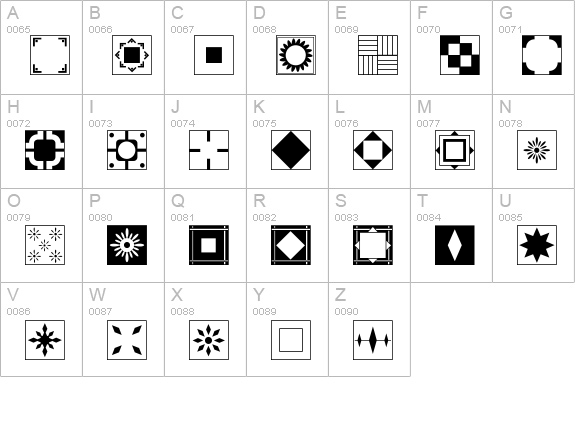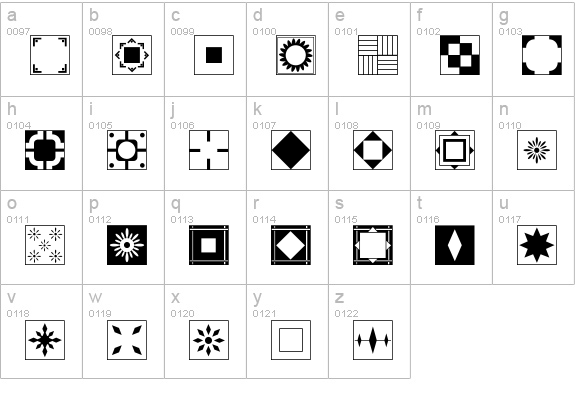
Floor Tile Patterns, Pt. 2 JL Font Details
Floor Tile Patterns, Pt. 2 JL font is a stunning and versatile typeface that adds a touch of elegance to any design project. This font features intricate tile-inspired patterns that create a unique and eye-catching aesthetic. The detailed design of this font makes it perfect for use in a wide range of applications, from branding and packaging to invitations and posters. What sets Floor Tile Patterns, Pt. 2 JL font apart is its ability to seamlessly blend traditional tile motifs with a modern and stylish twist. This juxtaposition of old and new creates a visually captivating look that is sure to impress. Whether you're working on a vintage-inspired design or a contemporary project, this font is sure to elevate your work to the next level. Best of all, Floor Tile Patterns, Pt. 2 JL font is available for free download at FontsMarket.com. This means that you can easily access this beautiful typeface and incorporate it into your designs without any cost. Don't miss out on the opportunity to add a touch of sophistication and charm to your projects with Floor Tile Patterns, Pt. 2 JL font. Download it today and start creating stunning designs that will leave a lasting impression.